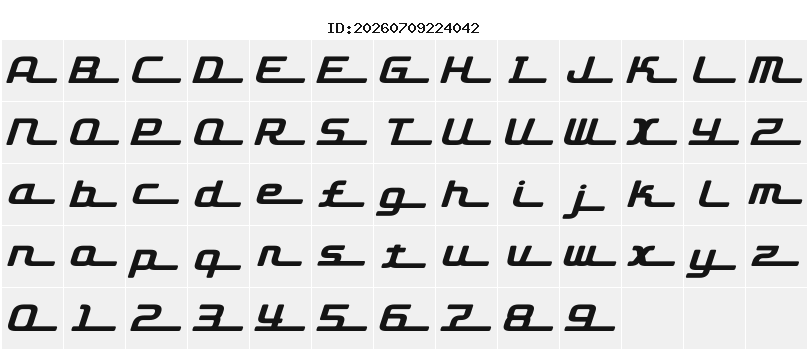
D3 Roadsterism Long Italic Preview
About D3 Roadsterism Long Italic.ttf
D3 Roadsterism Long Italic.ttf is a modern, elegant sans-serif font designed for ultimate readability and visual harmony. Perfect for branding, headlines, web design, and print materials.